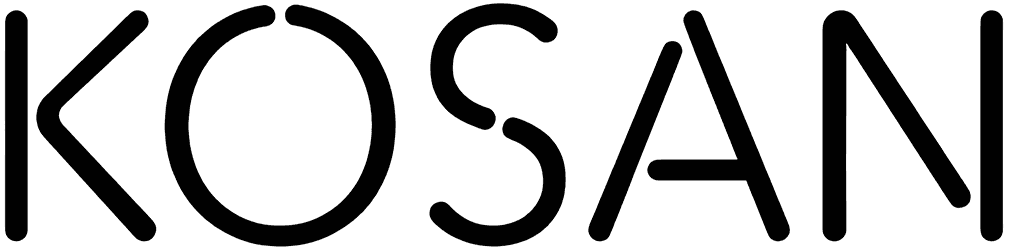
Kosan Font
Since you use a minimal and modern letterform like this neon font, the outcome will be eye-catching. This sign font doesn’t support lowercase letters and most punctuation marks, but you can still count on it to create amazing layouts. Use the Kosan font for your next design, such as a nightclub sign, and capture a lot of attention.